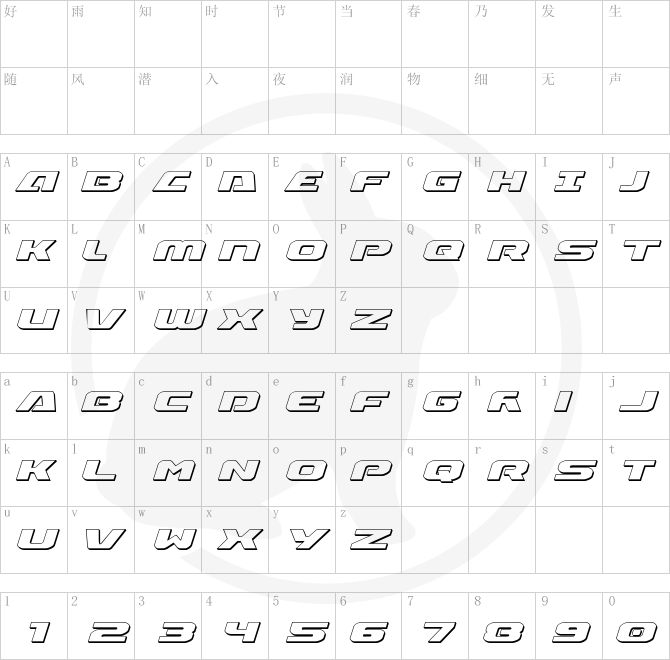
- Font Name:Iapetus 3D Italic
Iapetus-3D-Italic.ttf is a very beautiful artistic font, Iapetus-3D-Italic.ttf is widely used in the design and printing of various books and pictures,Iapetus-3D-Italic.ttf has a strong visual impact,Iapetus-3D-Italic.ttf is a commonly used font in newspapers, magazines and books, and is used in posters, e-commerce Poster design, store design, logo design, font design and other fields.Iapetus-3D-Italic.